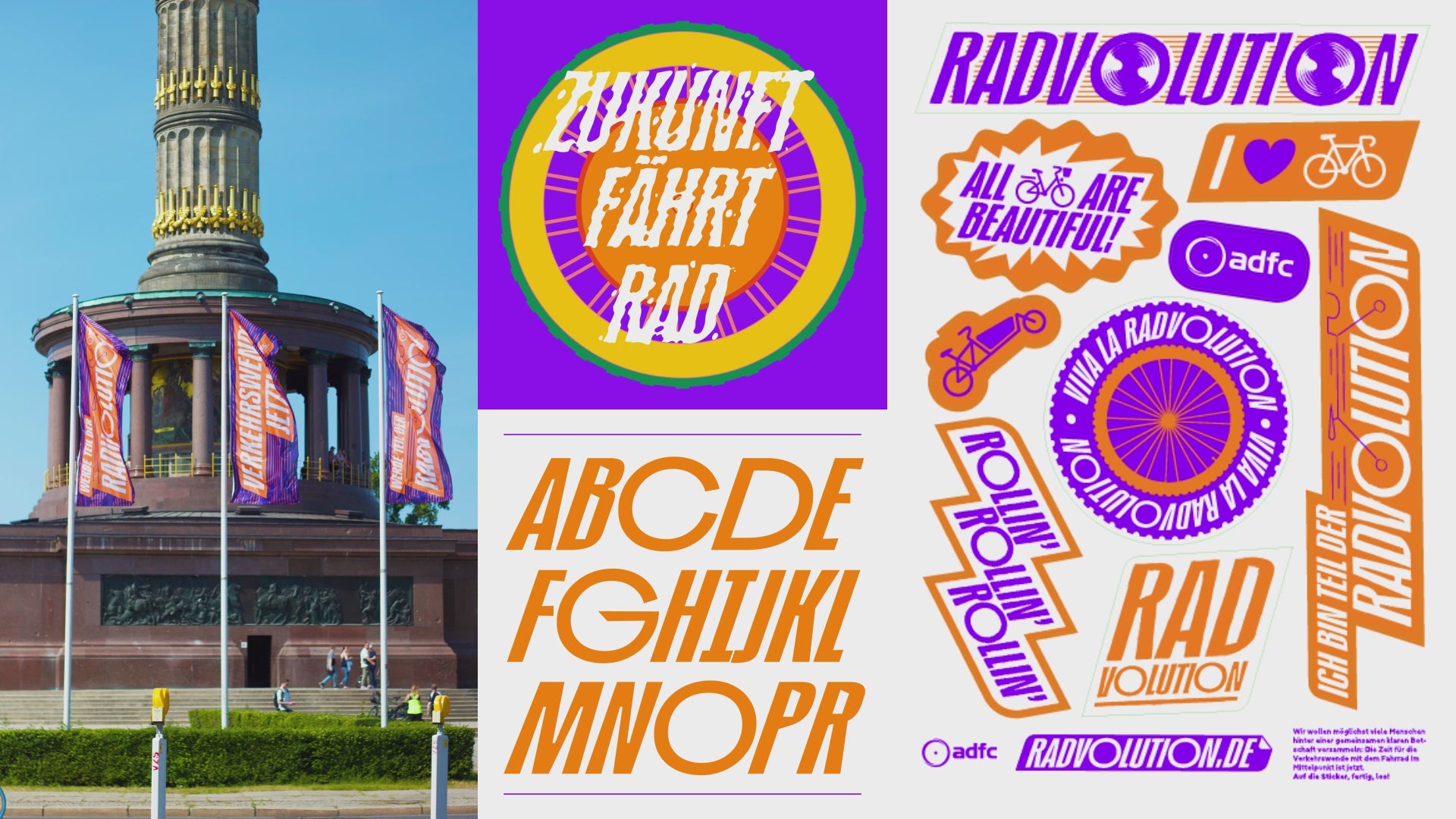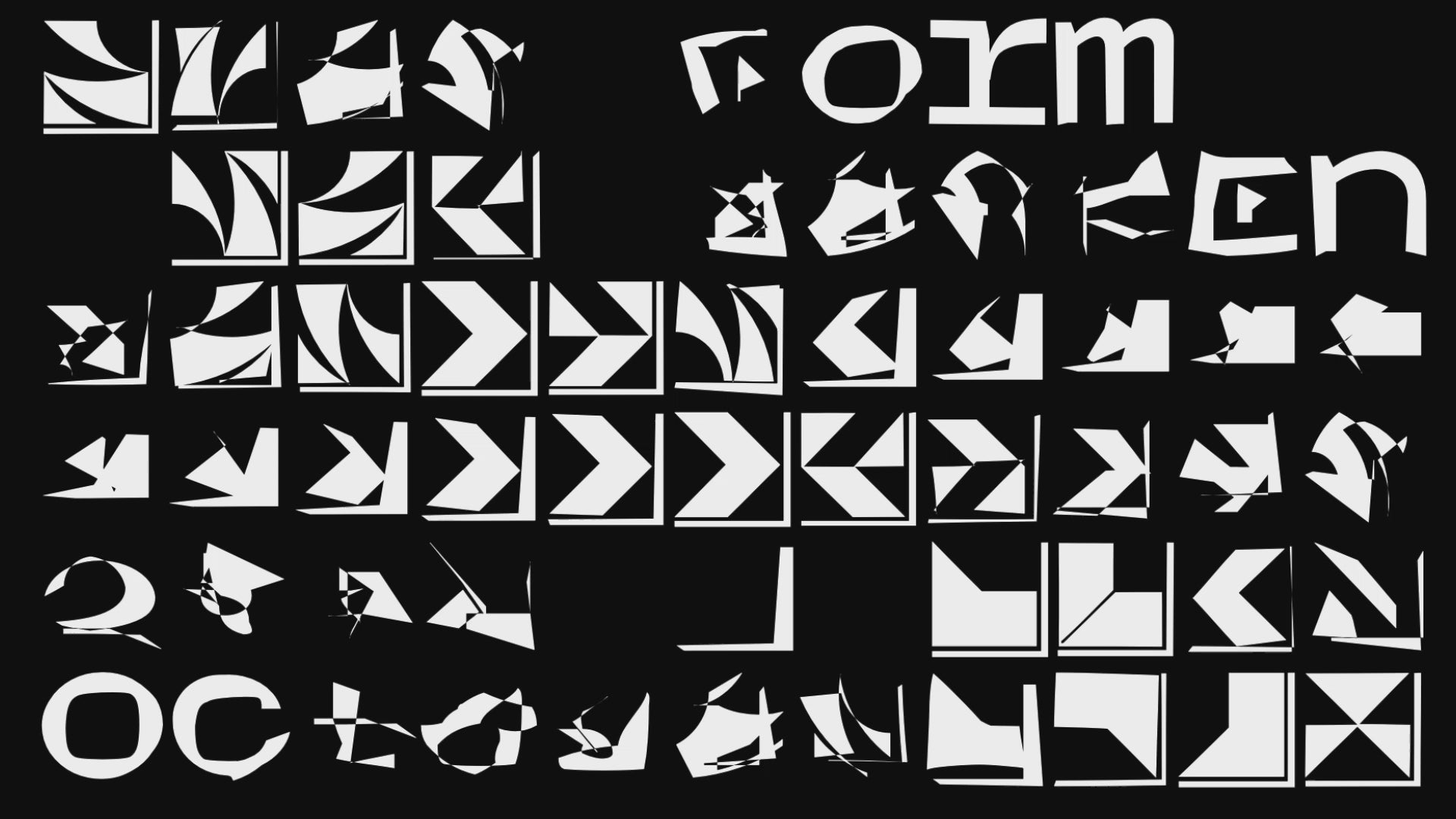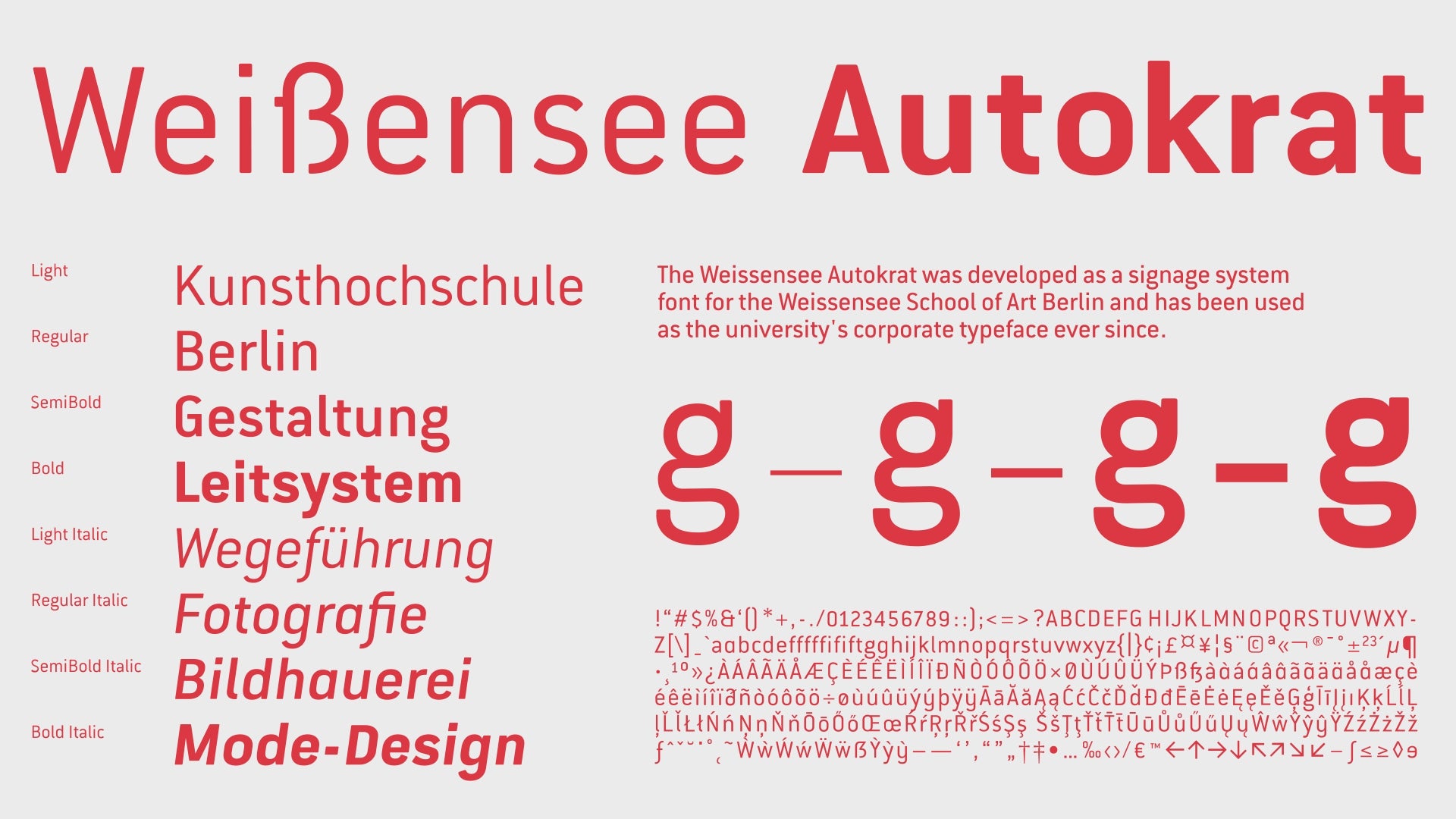
ADFC Radvolution – Custom Campaign Typeface
Developed for the Allgemeiner Deutscher Fahrrad-Club (ADFC), Germany’s largest bicycle advocacy group, this custom campaign typeface was designed to modernize the association's visual language and appeal to a younger, broader demographic.
Serving as a key element of an expanded brand identity, the high-impact display font turns the previously sober corporate design into an energetic, activating voice. It was deployed across nationwide campaigns, social media, and digital platforms, enabling local chapters to independently create high-quality, pop-cultural communications.
Weissensee Academy of Art Berlin – Institutional Typeface
Designed as the visual anchor for the Weissensee School of Art and Design Berlin, this custom typeface powers the academy’s identity, official communications, and campus wayfinding system.
Built completely from scratch and spanning over 4 weights with additional italics, the font is a ground-up iteration of Conduit, the institution’s previous visual hallmark. It refines the technical, utilitarian character of its predecessor into a versatile, modern type family optimized for both spatial orientation and multi-format publishing.
Open Form Berlin-Lublin Exhibition
Designed for a dual-city exhibition in Berlin and Lublin exploring the work of Polish designer and architect Oskar Hansen, this custom typeface serves as the central visual anchor of the exhibition’s identity.
Utilizing variable font technology, the typeface dynamically morphs between modular, tile-like shapes and functional monospaced letterforms. It was deployed seamlessly across the spatial exhibition design, promotional campaign, and interactive games.